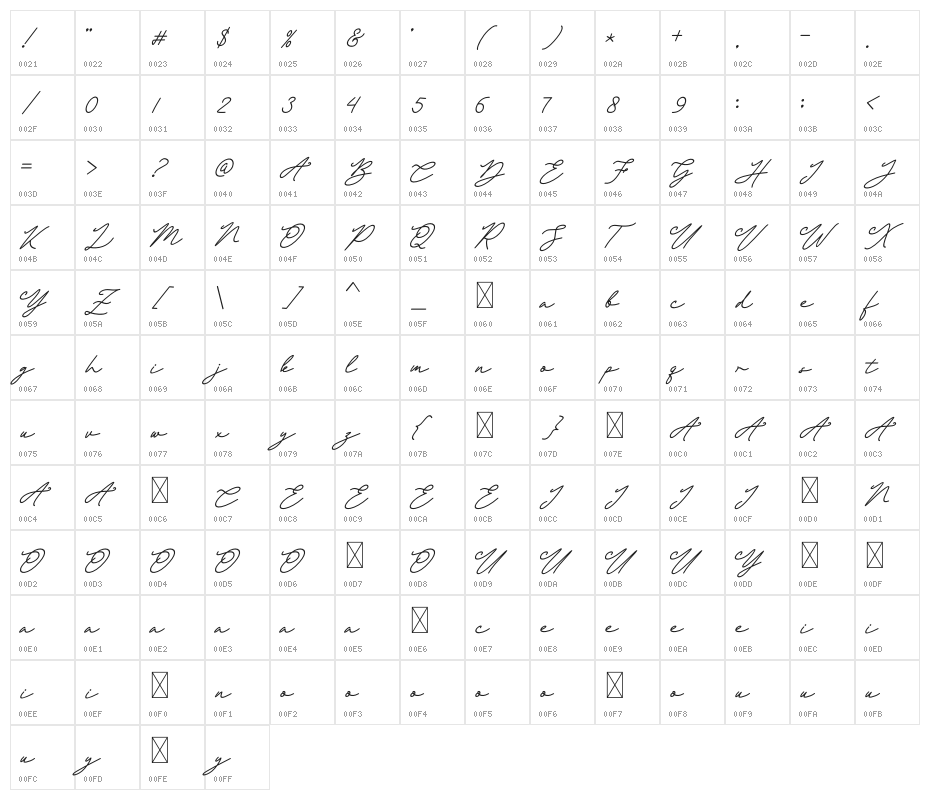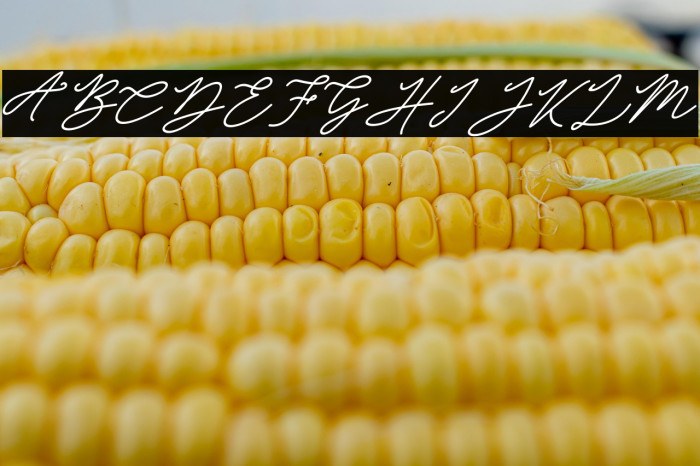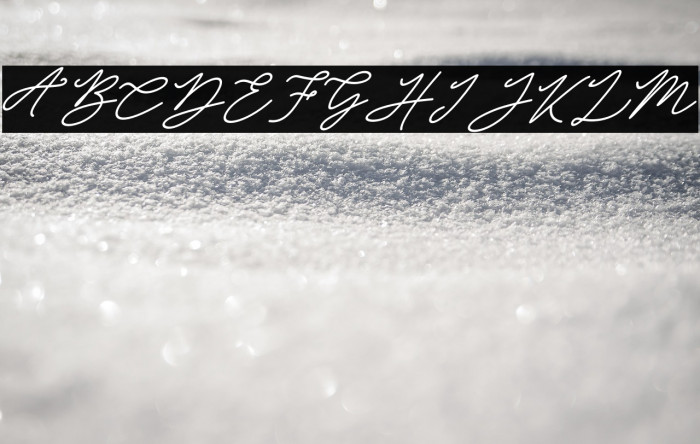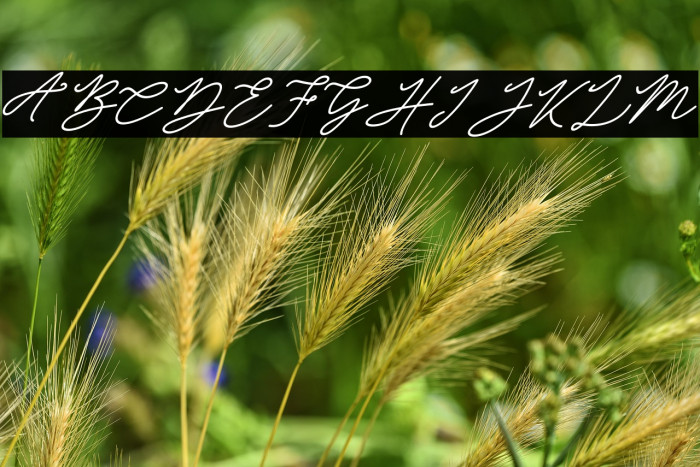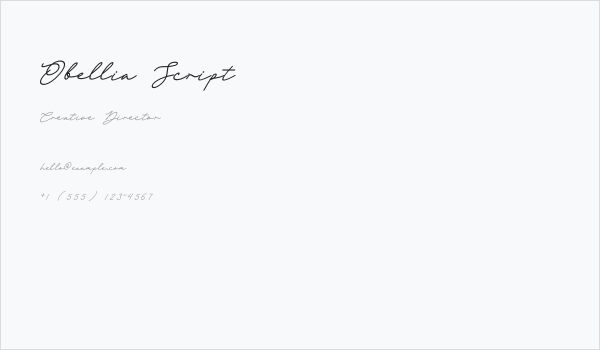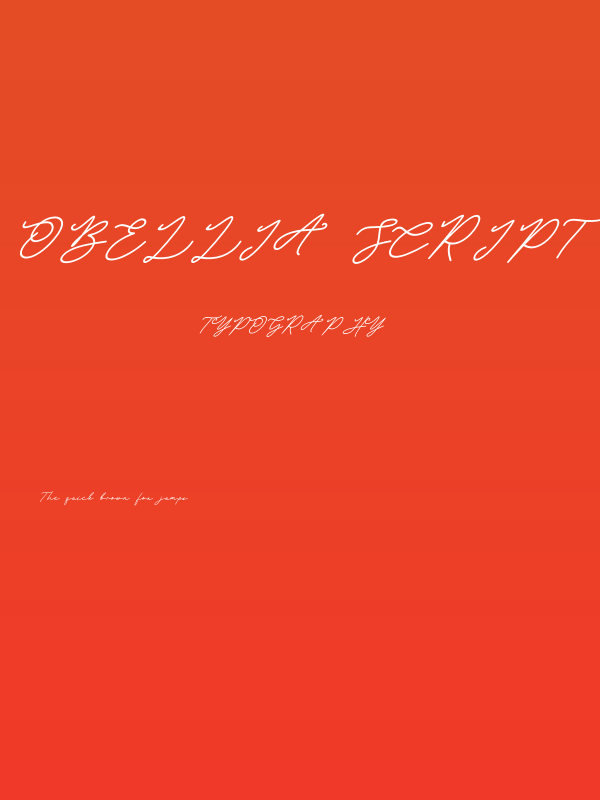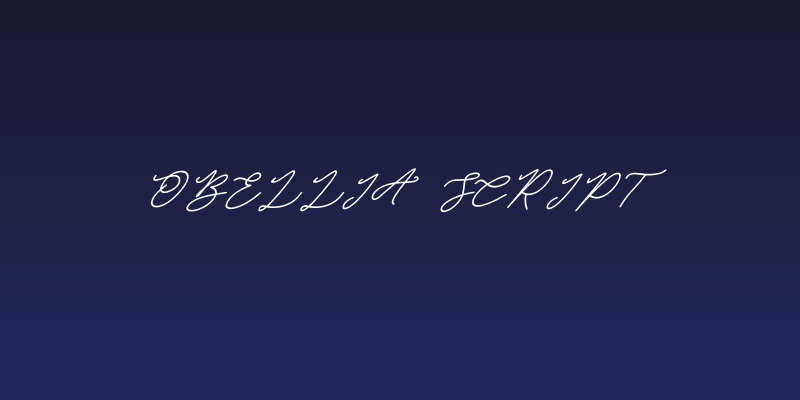
Obellia Script Font
Obellia Script Description
A flowing, elegant script font with smooth, connected strokes and a handwritten appearance.
| Overall Style | Elegant, Handwritten |
| Use Case | Logos, Invitations, Decorative text |
| Proposed Projects | Invitations, greeting cards, branding, and elegant designs. |